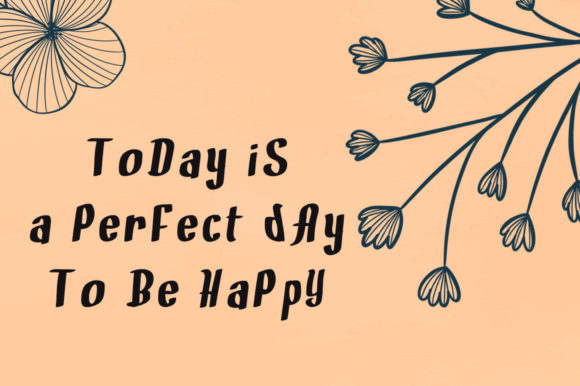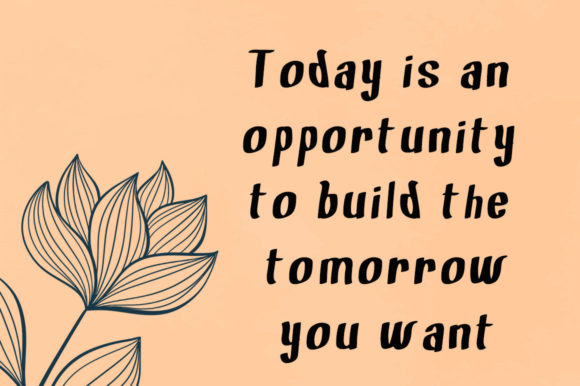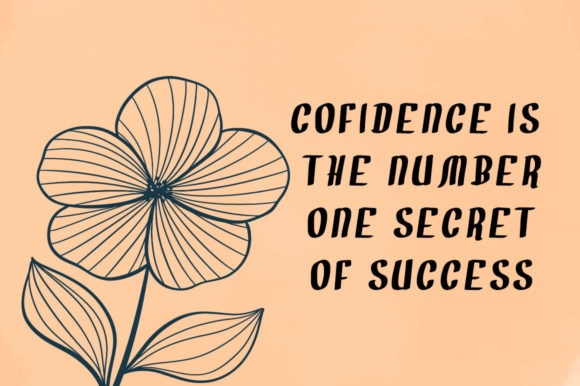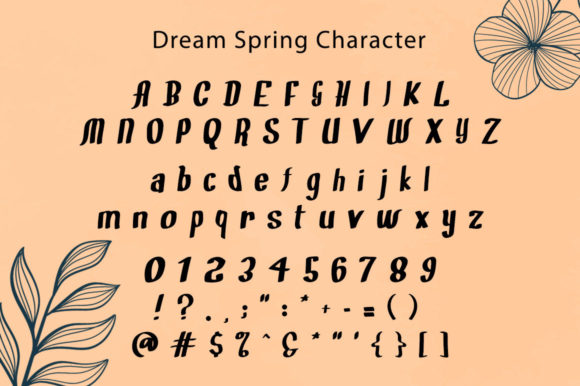
Dream Spring Font
About Dream Spring Font
“Dream Spring”: Elevate Your Designs with the Cute Charm of this Versatile Font
Introducing “Dream Spring,” a cute and versatile font that promises to stand out in any context. Whether you’re in need of fonts for Instagram, calligraphy scripts for DIY projects, or any creative idea that deserves to be transformed into a true piece of art, “Dream Spring” is here to deliver. With its adorable charm, this font is particularly well-suited for logos, headings, t-shirts, letterheads, signage, labels, news, posters, badges, and more.
The standout feature of “Dream Spring” lies in its cute and charming aesthetic. The font’s playful design adds a touch of whimsy to your creative projects, making it an ideal choice for applications that call for a lighthearted and endearing vibe. Whether you’re creating content for social media, designing merchandise, or crafting eye-catching headlines, “Dream Spring” ensures that your designs captivate with cuteness.
The versatility of “Dream Spring” shines through in its ability to enhance a wide range of design applications. For logos, the font becomes a distinctive element that communicates a brand’s personality with flair. Headings benefit from the font’s unique charm, creating visual interest and drawing attention. Whether you’re working on t-shirts, letterheads, or signage, “Dream Spring” adds a delightful touch that elevates the overall design.
Signage, labels, news, posters, badges, and more are transformed into pieces of art with the inclusion of “Dream Spring.” Its cute and appealing nature ensures that your message is not only communicated effectively but also leaves a lasting impression. The font’s ability to adapt to various contexts makes it a valuable asset for designers looking to infuse their projects with creativity and charm.
In conclusion, “Dream Spring” is the cute font that brings a touch of joy and playfulness to your designs. Whether you’re working on logos, headings, t-shirts, letterheads, signage, labels, news, posters, badges, or any other creative endeavor, let “Dream Spring” be the font that turns your ideas into true pieces of art. Explore its versatility, embrace its cuteness, and watch as it adds a delightful charm to every context it graces.